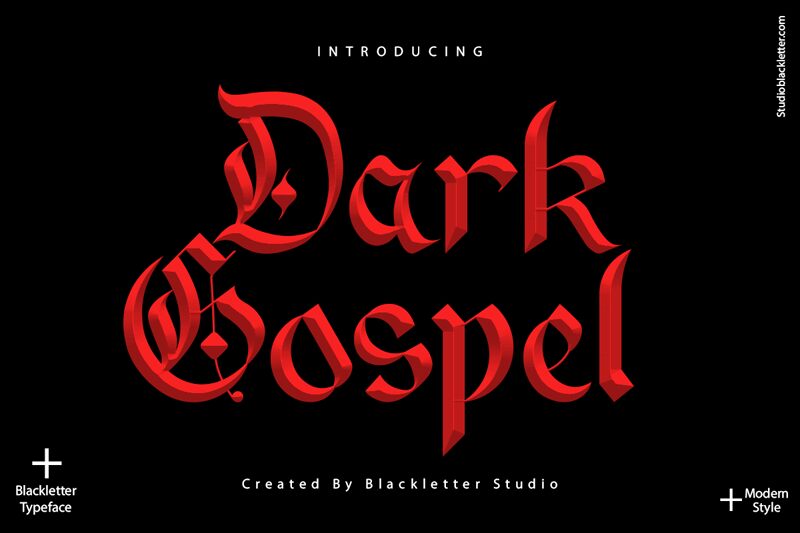
Dark Gospel, the gothic font designed by Blackletter Studio, exudes a medieval style that will give your projects an edgy and mysterious feel. With its semi-light weight, it strikes the perfect balance between boldness and subtlety. Use Dark Gospel to elevate your branding, logo designs, posters, or book covers with a touch of darkness and sophistication. This font is suitable for various projects ranging from music albums to horror films or even fashion magazines. Let Dark Gospel add a touch of mystique to your creative endeavors and captivate your audience with its unique flair.